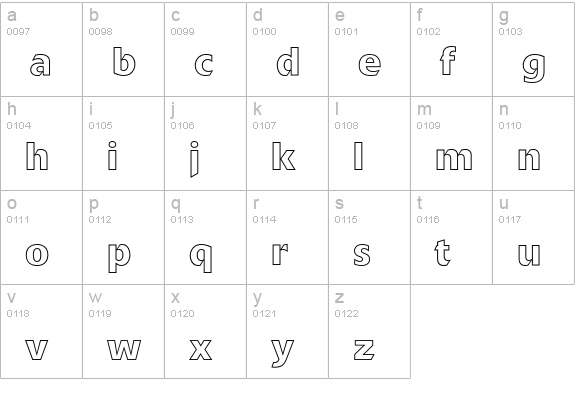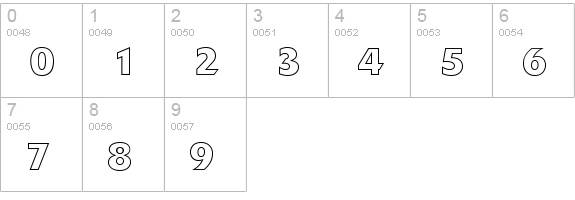
Delta Jaeger BQ Outline Font Details
Delta Jaeger BQ Outline is a modern and stylish font that combines sleek lines with a bold presence. Its unique outline design adds a contemporary touch to any project, making it perfect for branding, logos, posters, and more. This versatile font is ideal for creating eye-catching visuals that stand out from the crowd. The best part is that Delta Jaeger BQ Outline is completely free to download at FontsMarket.com. You can easily access this font and enhance your design projects with its trendy and impactful aesthetic. Don't miss out on this opportunity to elevate your designs with the distinctive appeal of Delta Jaeger BQ Outline font.